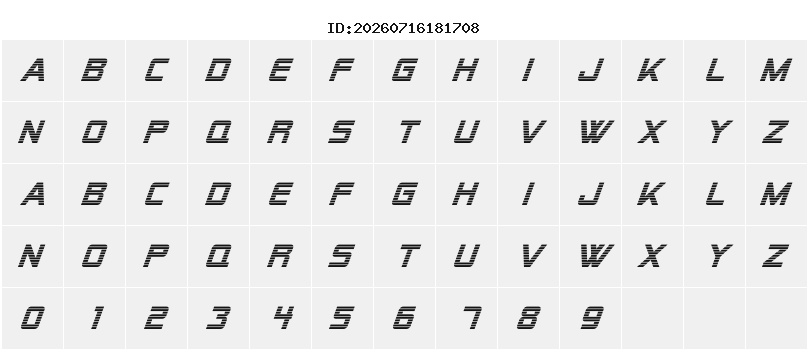
• Font Name: Alien Encounters
• Full Font Name: Alien Encounters Italic
Alien Encounters.ttf is a modern, elegant sans-serif font designed for ultimate readability and visual harmony. Perfect for branding, headlines, web design, and print materials.